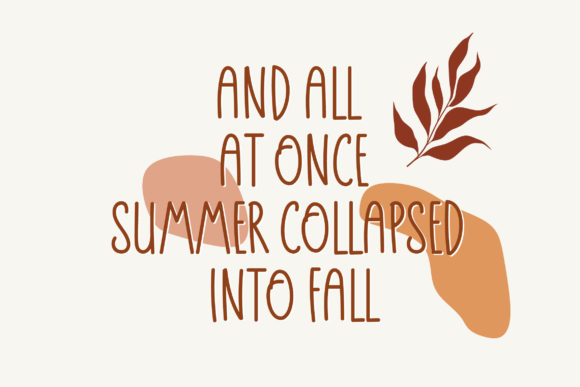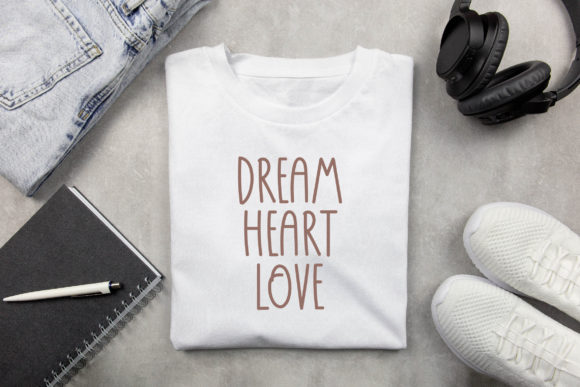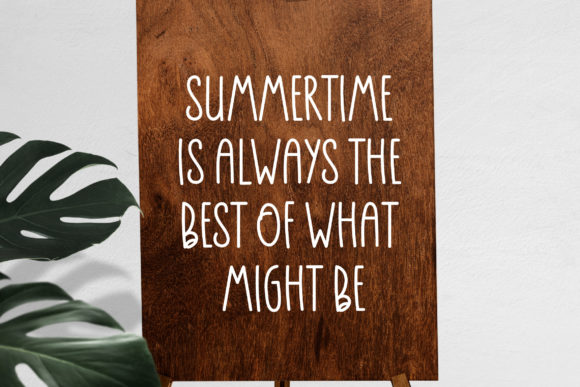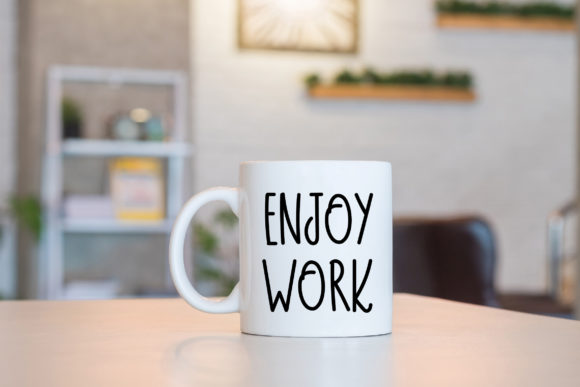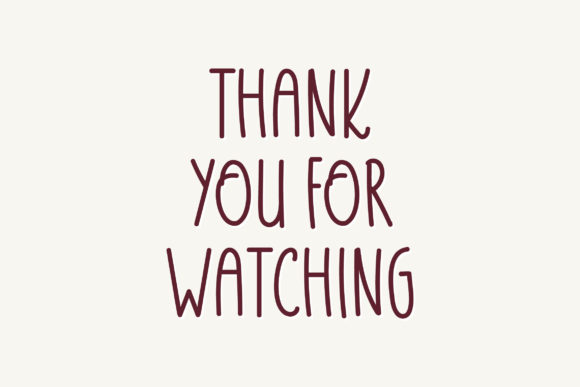
Wildtall Font
About Wildtall Font
Wildtall is a cute and simple lettered handwritten font that can be used for all chalkboard quotes or teaching material! Its authentic look will add a personal and realistic feel to your designs.